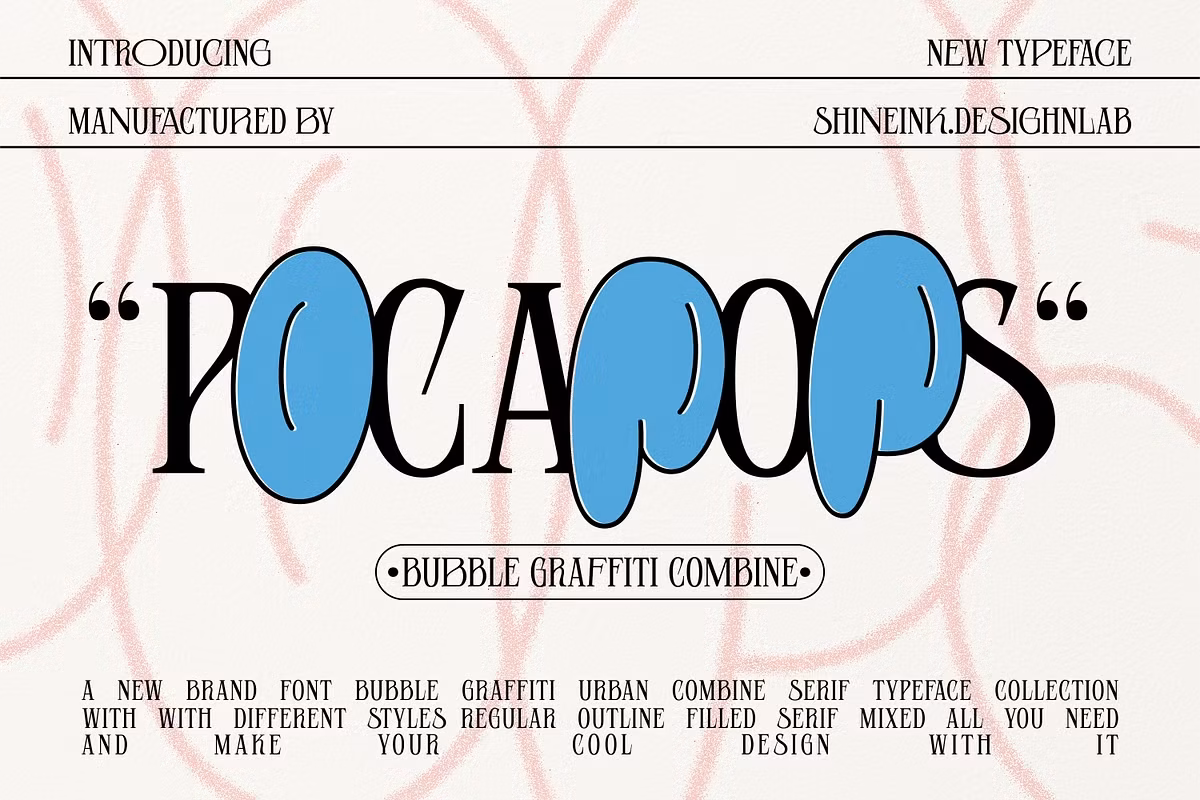
Pocapops Font Free Download is a fun and quirky typeface that combines bold letterforms with playful curves, making it ideal for creative projects that need a lively and energetic touch. Whether you're designing for a children's brand, a playful event, or casual advertising, Pocapops adds a cheerful and whimsical feel to your typography.
The font's unique design makes it stand out in headings, logos, and social media graphics, while still maintaining excellent readability. Its versatility ensures it works well across both digital and print media, bringing personality to any creative endeavor.